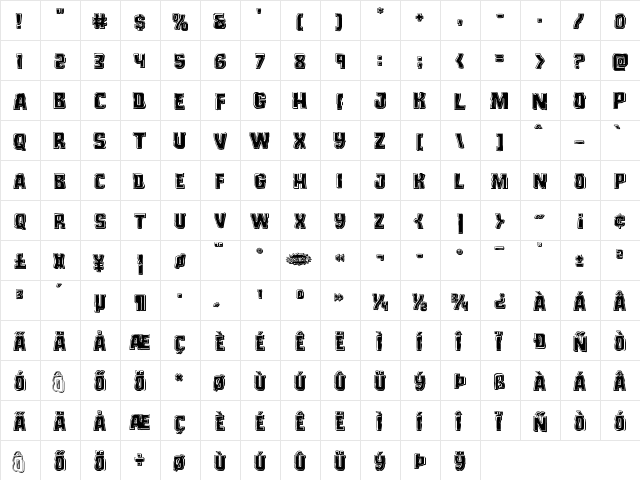
Monster Hunter Bevel Regular
Design Context for Monster Hunter Bevel Typeface
Monster Hunter Bevel is a composed and adaptable typeface that performs quietly and consistently across a wide range of design contexts.
Pro Tip: Use Monster Hunter Bevel in both headline and body roles to test its range before committing to a single application.